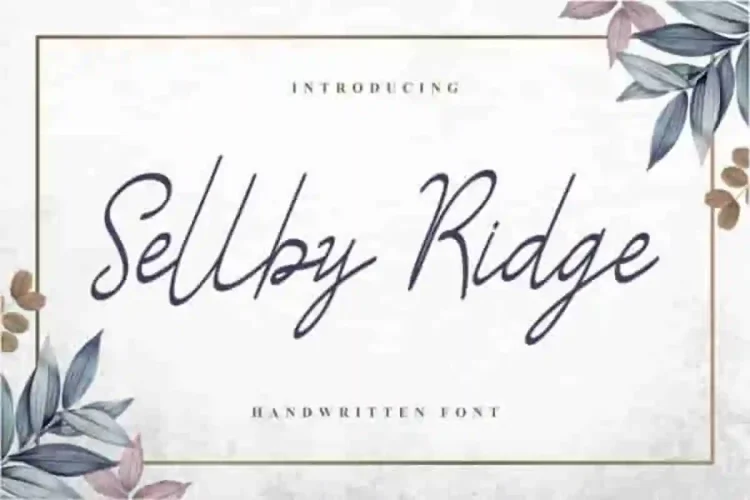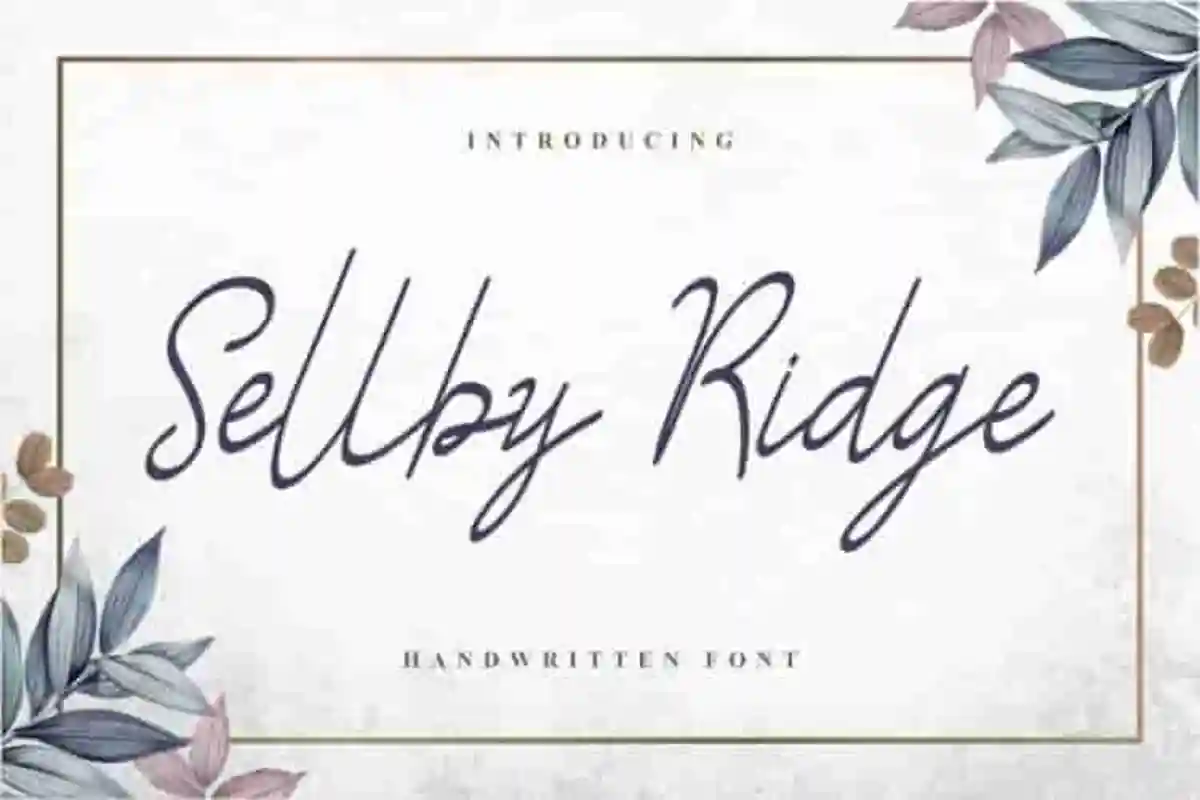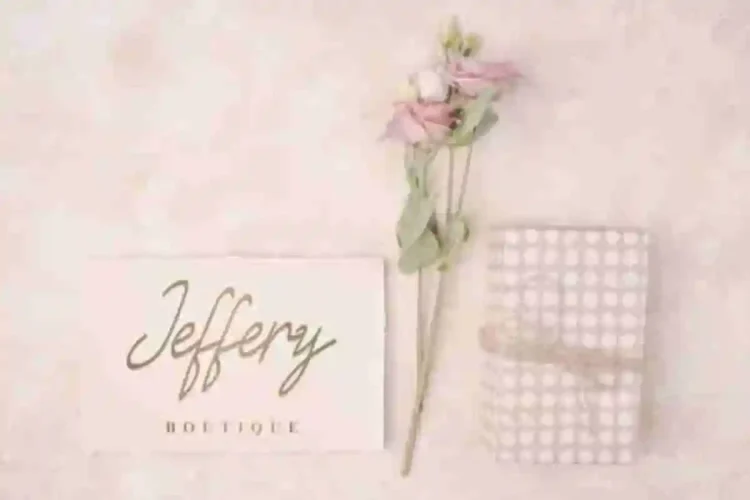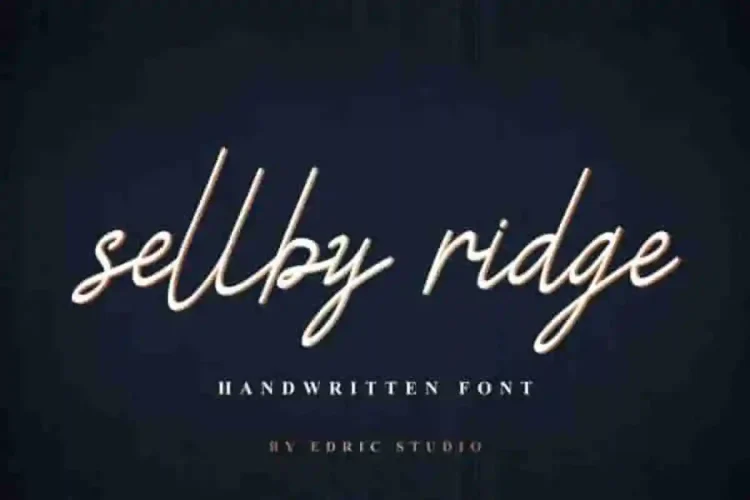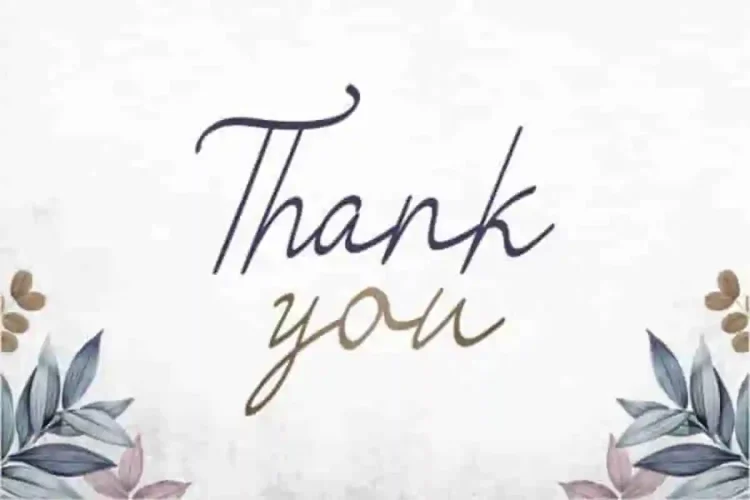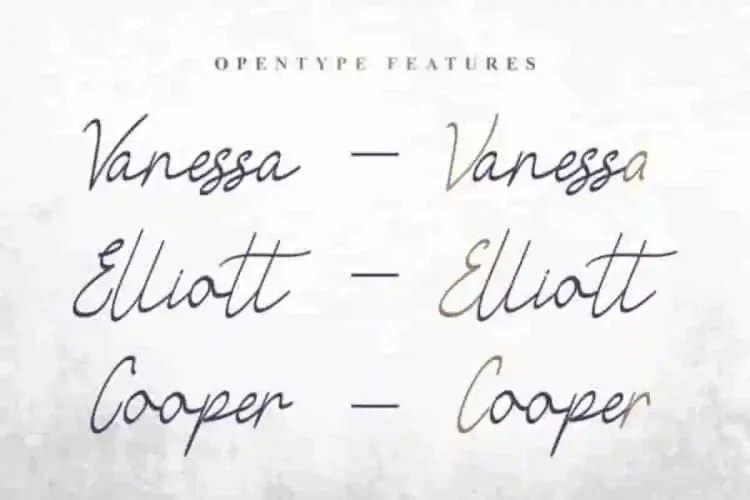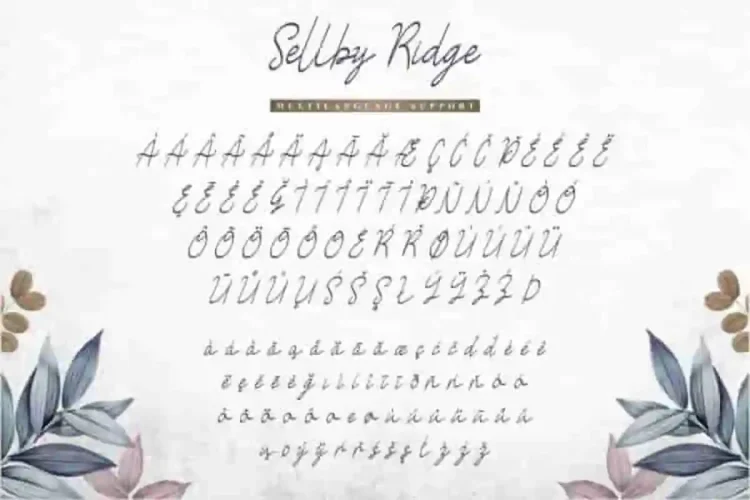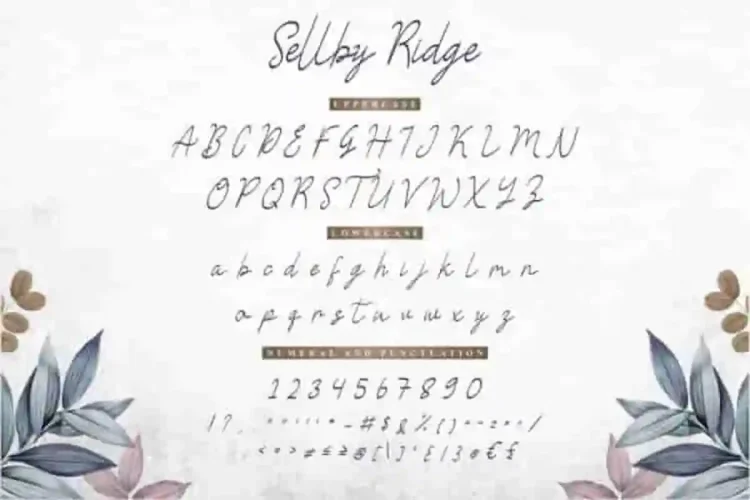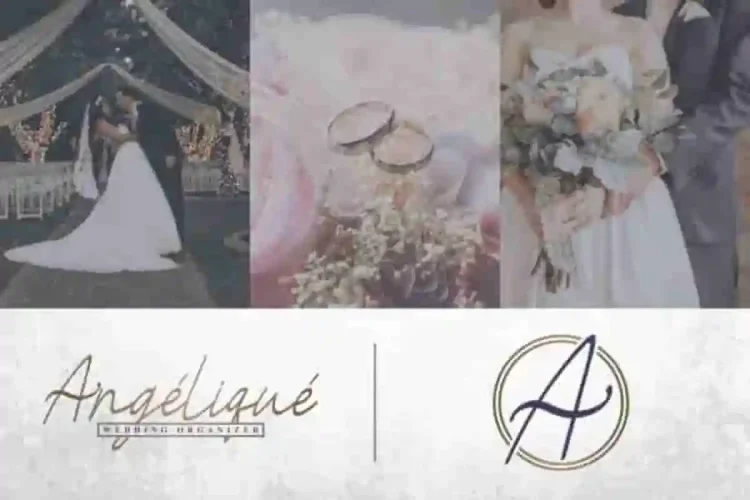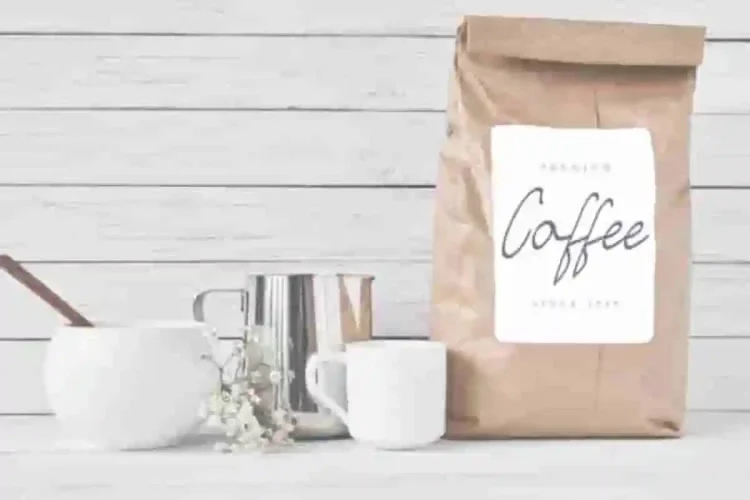
Sellby Ridge Calligraphy Font
Introducing our latest font ! Sellby Ridge Calligraphy Font
This is the newest script font from our studio. Made by our lovely artists  : Fahri and Sarah. This is a script typeface,  handcrafted from our Studio in Garut and Bandung, Indonesia.
Sellby Ridge Calligraphy Font is an exclusive script font with a unique style. The font has a stunning characters, perfectly kerned and well spaced. The style of this font is elegant, stylish, sophisticated and classic handwriting style. You’ll get a stunning result using this one.
Sellby Ridge Calligraphy Font will be awesome for any projects (with extended license) including : branding, logo, stationery, business card, signage, flyer, brochure etc. Many business industries will be great for this font: wedding, events, real estate, architect, law firm, florist, gardening, makeup artist, travel, hotel, musician etc